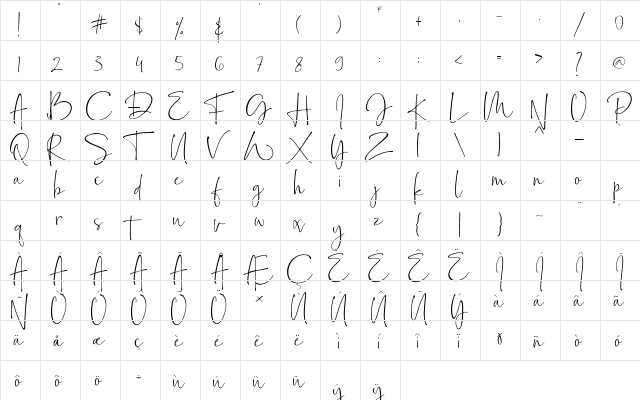
Bollivia Rosilla Script Regular
Design Context for Bollivia Rosilla Script Typeface
Bollivia Rosilla Script flows with the natural rhythm of handwritten lettering, making it ideal for designs that call for warmth and personal expression.
Font Pairing: Combine Bollivia Rosilla Script with a simple geometric sans for maximum contrast — the tension between flowing curves and clean structure is a classic typographic pairing.
Pro Tip: Pair Bollivia Rosilla Script with a clean sans-serif for supporting text. The contrast between fluid script and geometric structure creates an elegant typographic hierarchy.